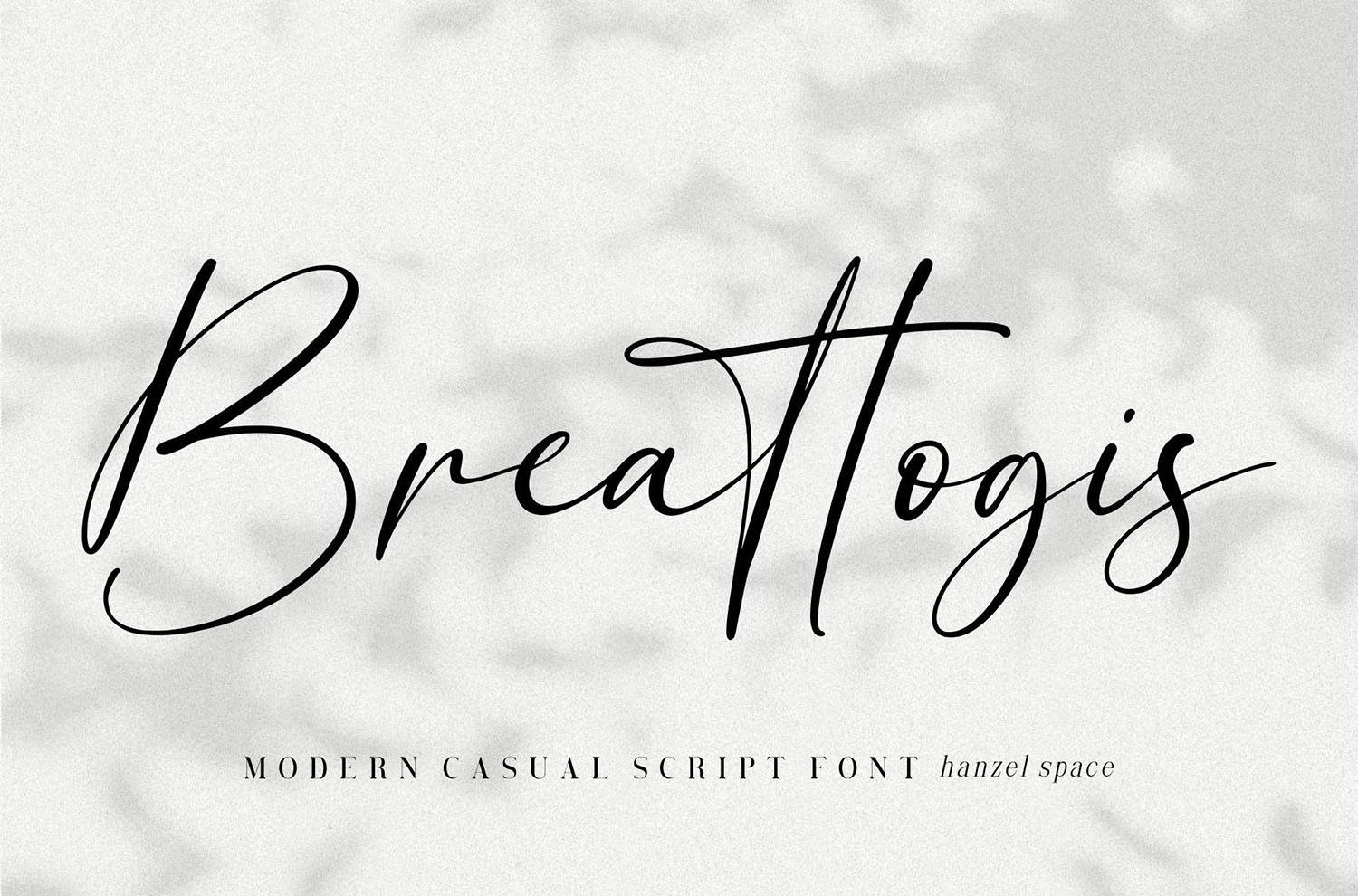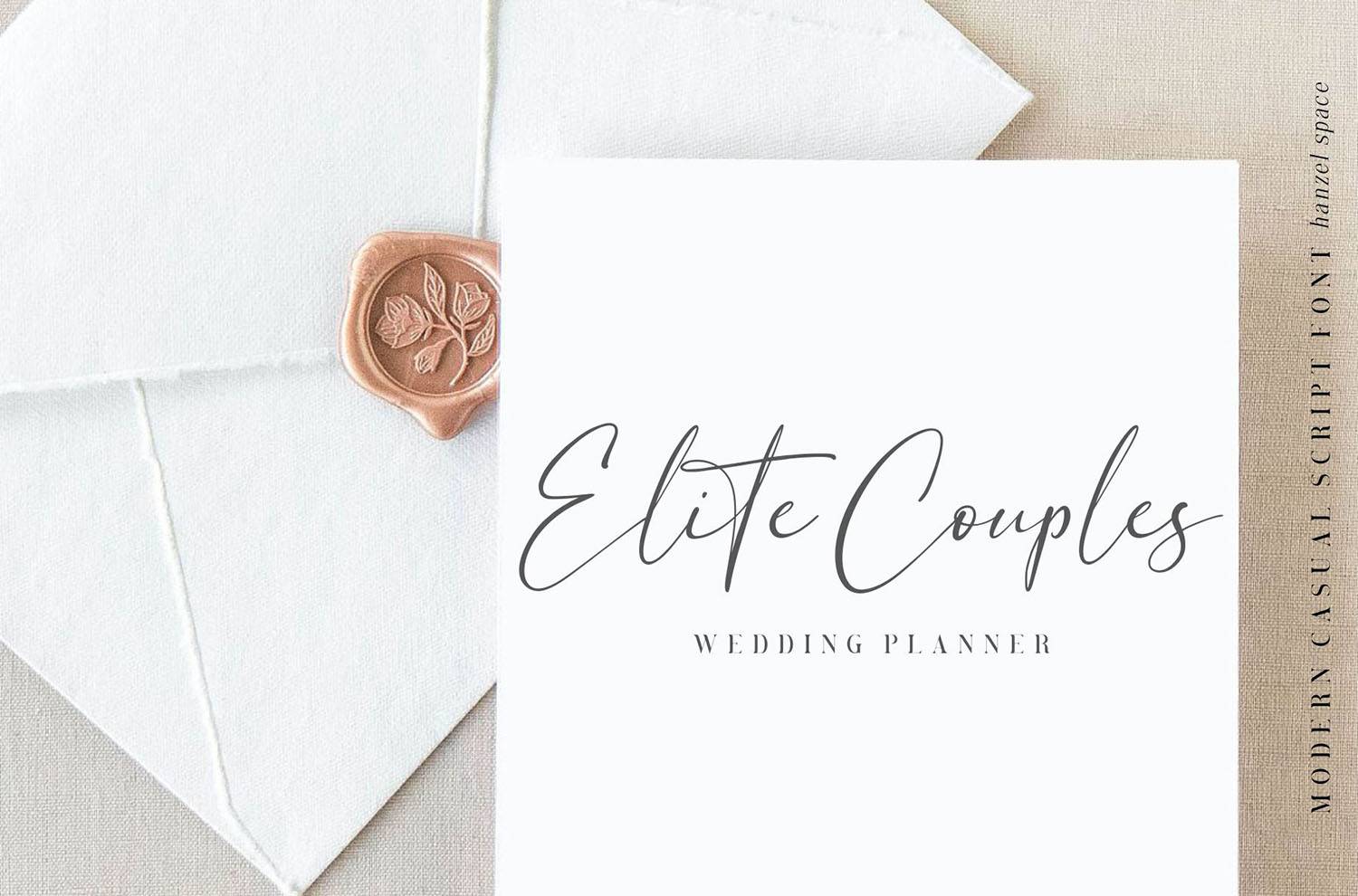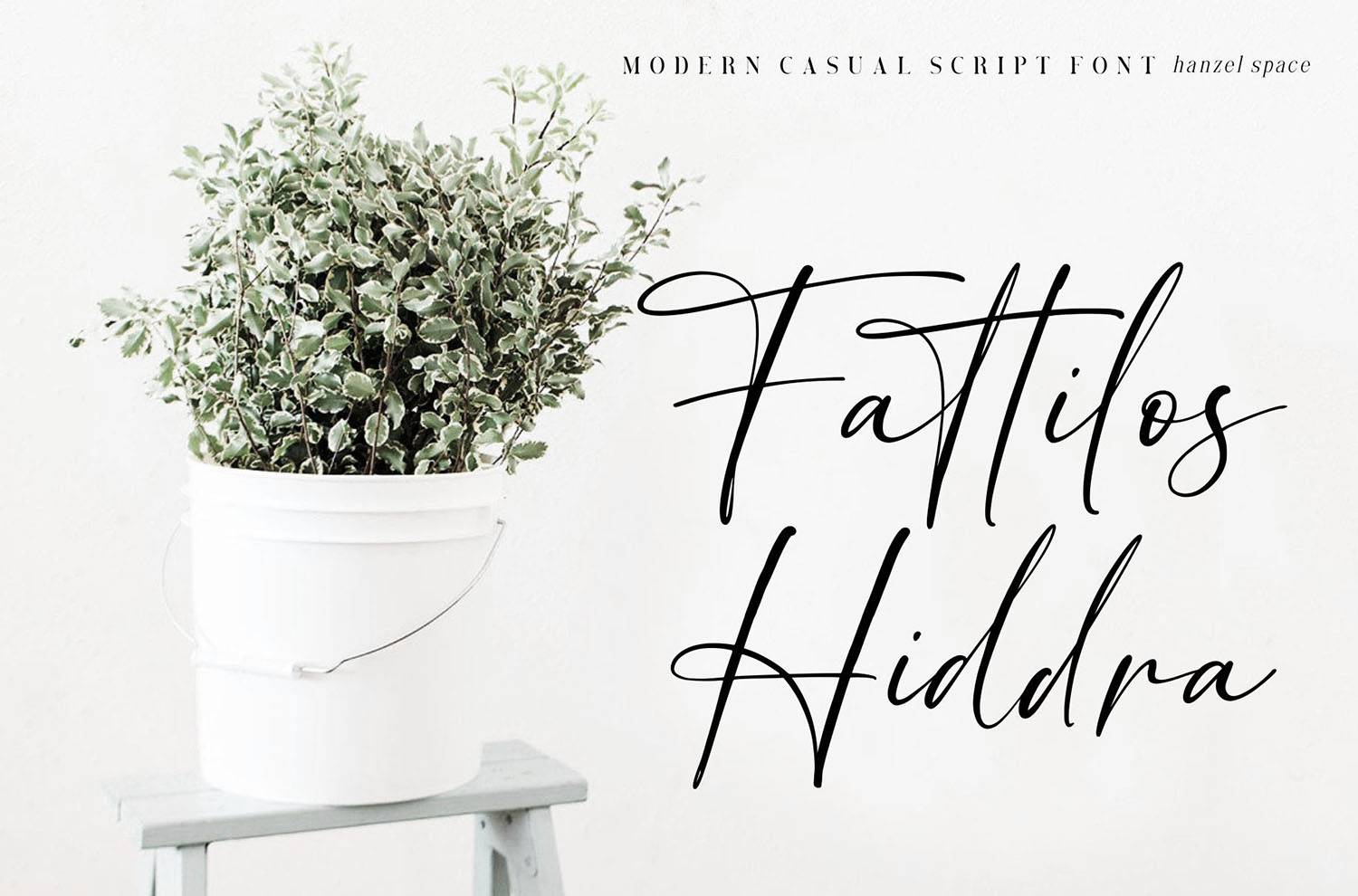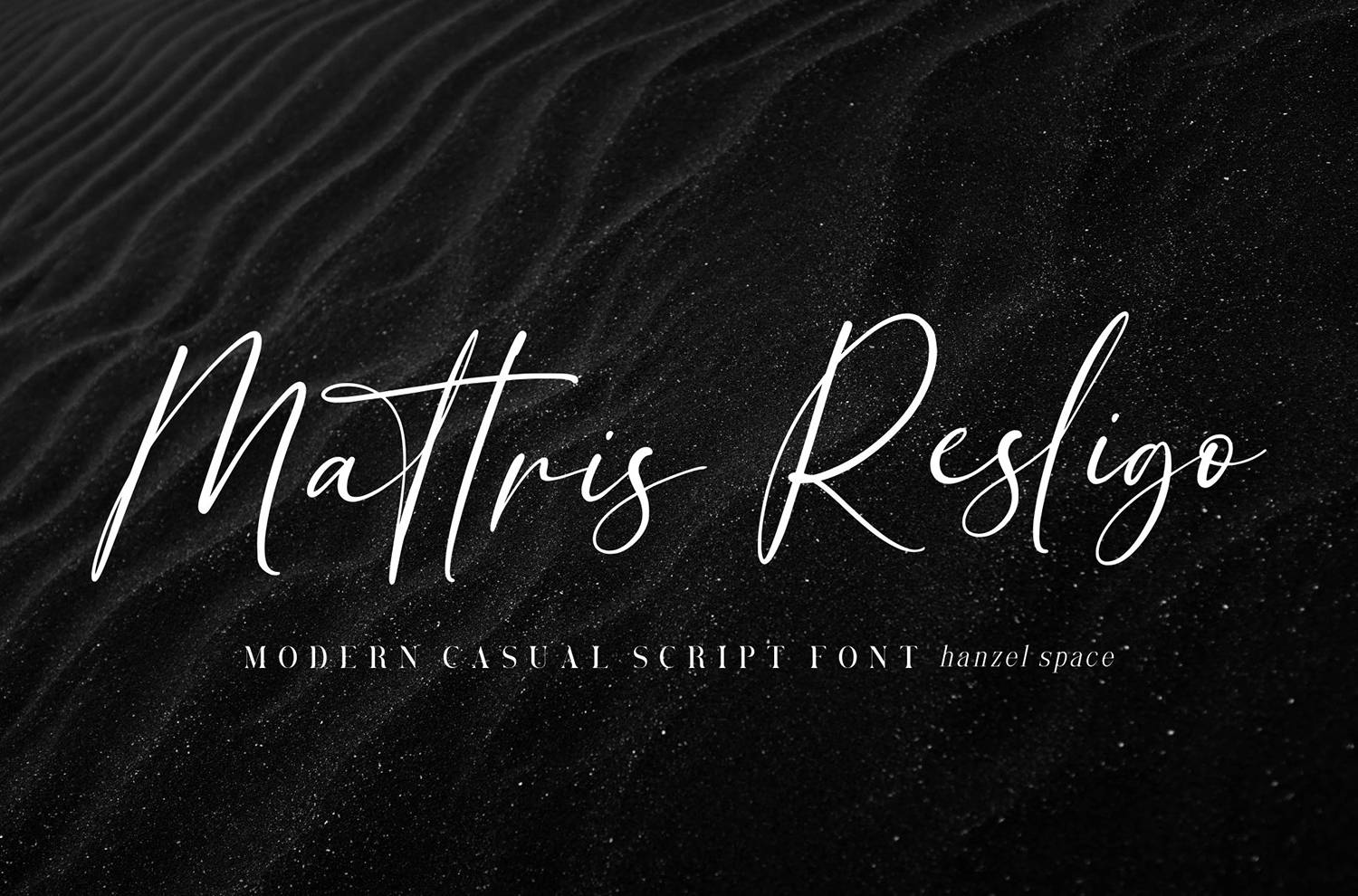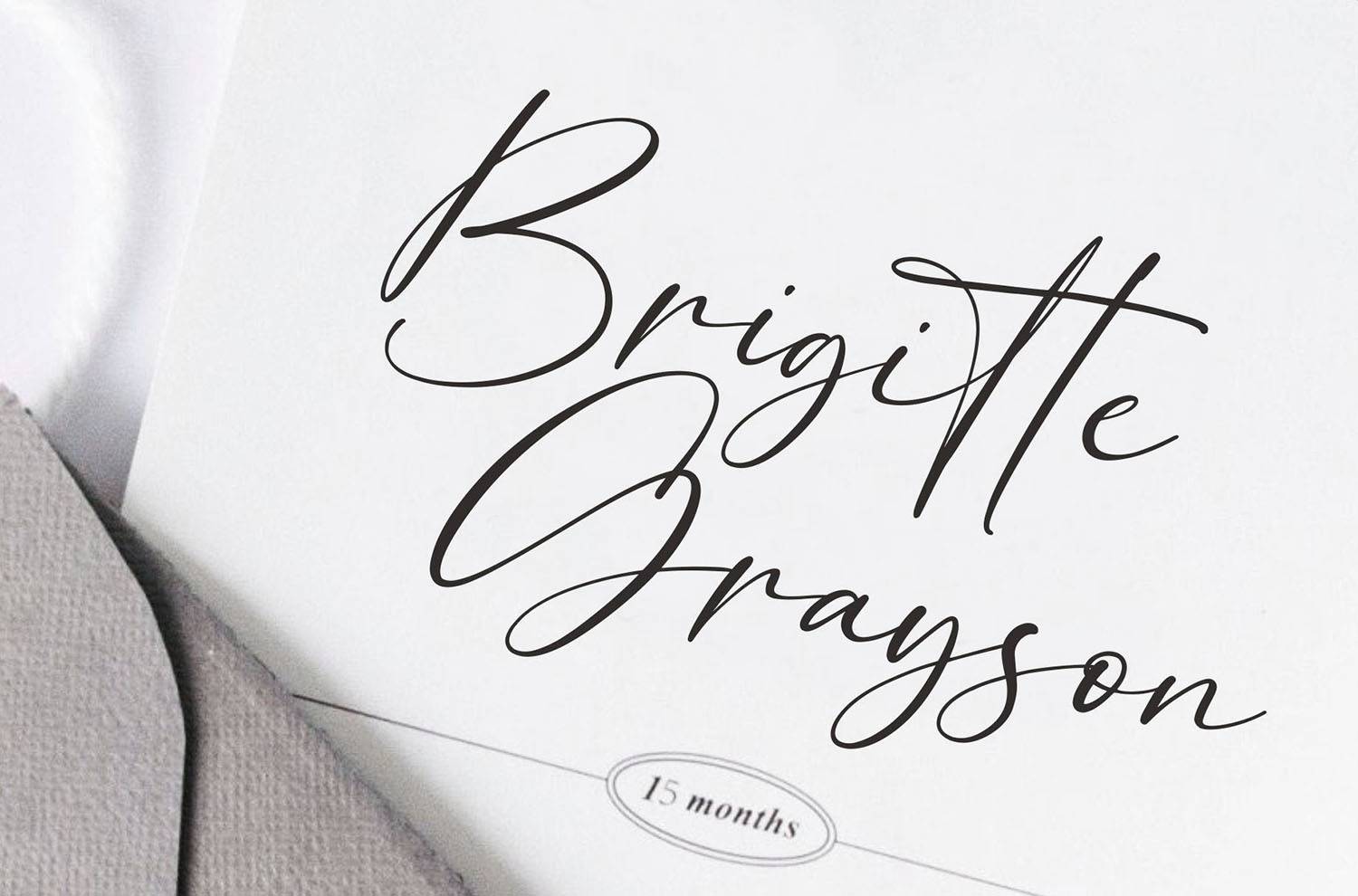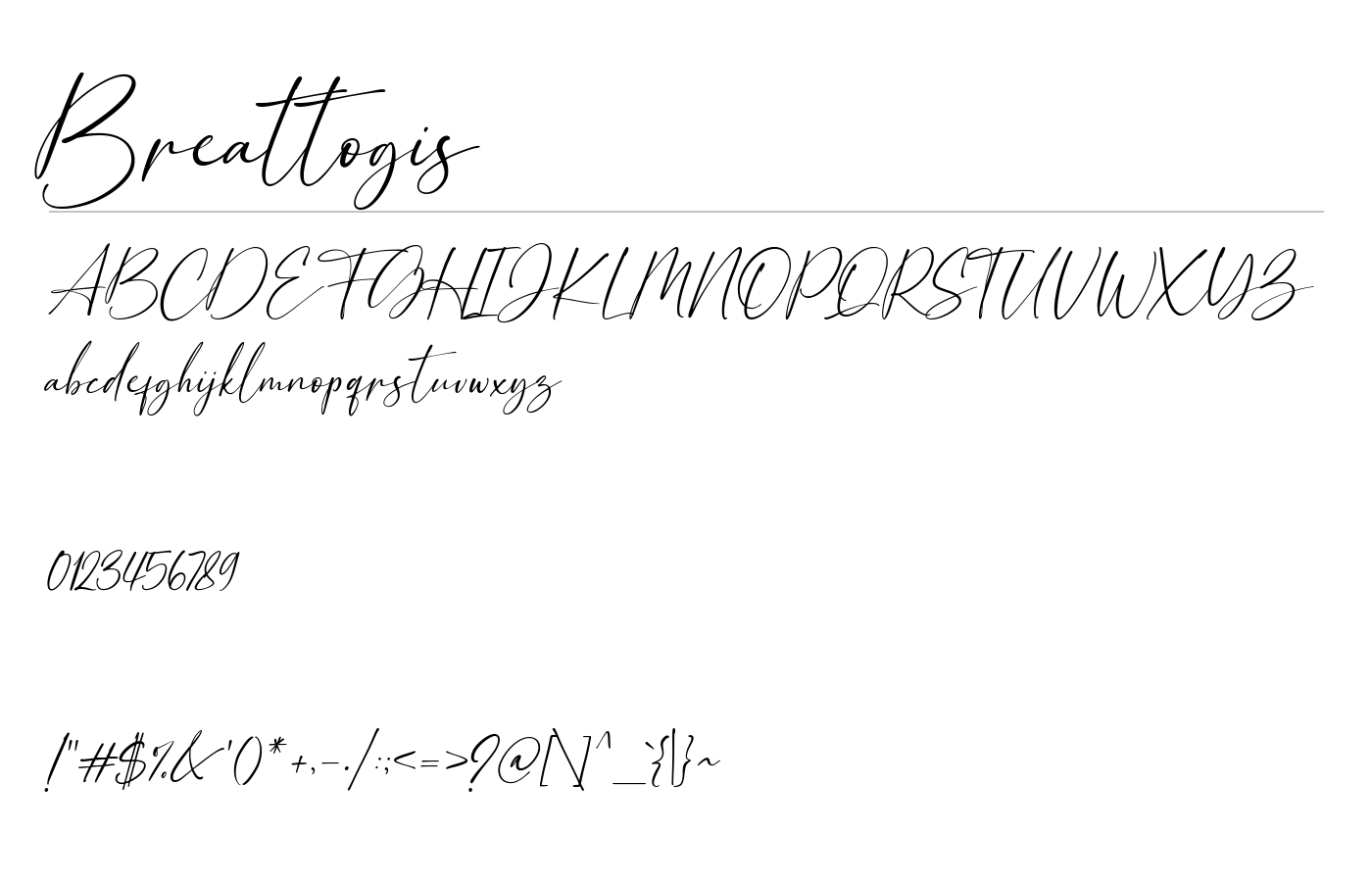
Breattogis is an elegant, delicate script font with a handcrafted feel, featuring thin strokes and graceful, flowing letterforms. Its tall, narrow letters and fine lines give it a refined and sophisticated personality, making it ideal for luxury branding, wedding invitations, and stylish editorial use where a personal, artistic touch is desired. This font works best in large sizes, such as headlines or logos, where its intricate details can be fully appreciated.
Breattogis Font
About Breattogis Font
| Font family | Breattogis Font |
| Designer | Hanief Farandi |